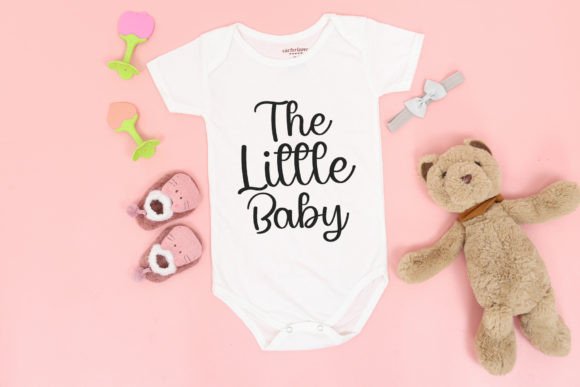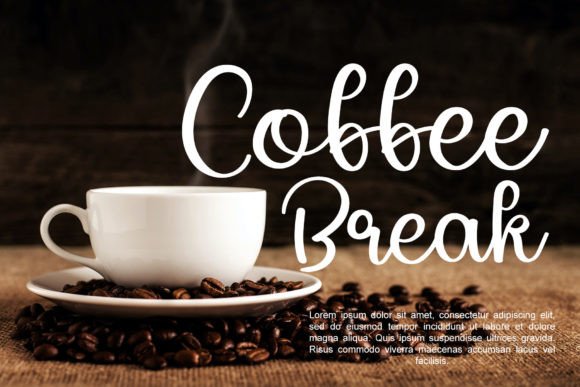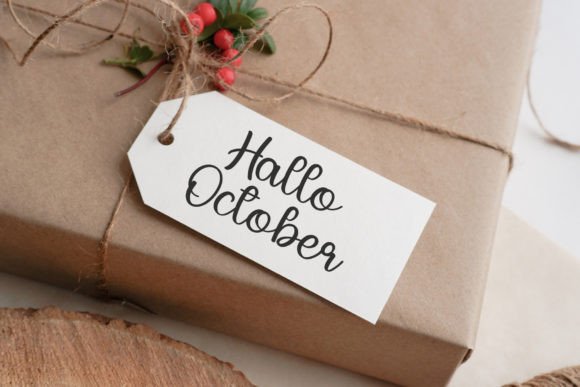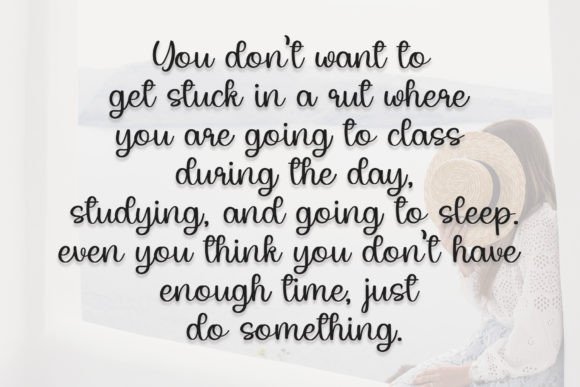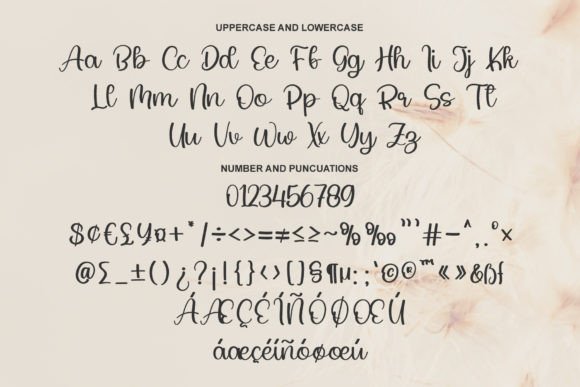
About Winter Font
Winter is a lovely and sweet handwritten script font. This gentle font will look gorgeous on a variety of design ideas. It will add a joyful and romantic touch to each of your projects!